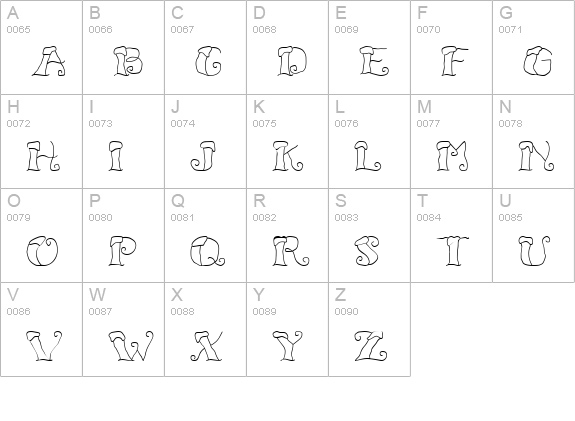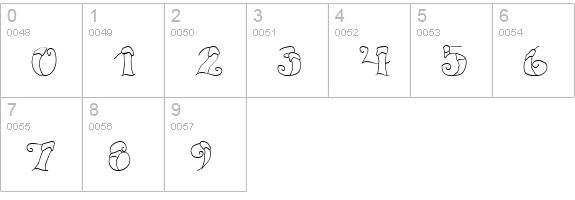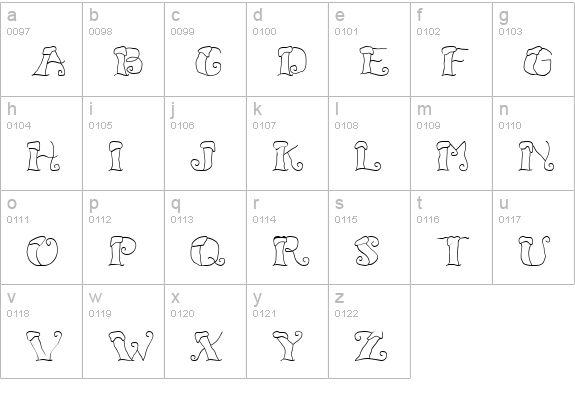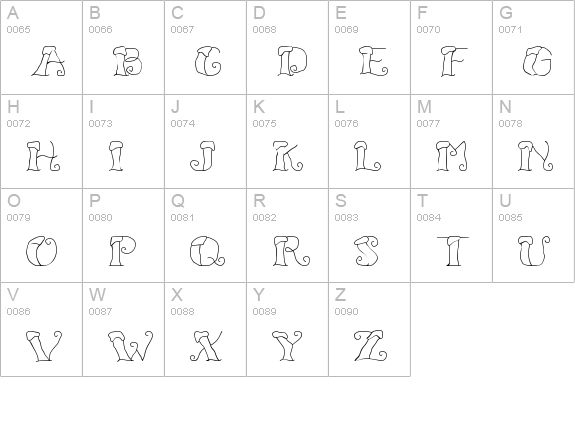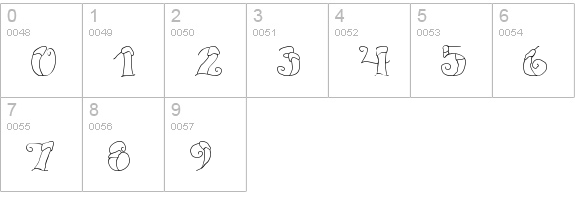
CK Winter Font Details
CK Winter font is a charming and versatile typeface that exudes a sense of warmth and coziness. Its elegant curves and clean lines make it perfect for a wide range of design projects, from invitations to branding to packaging. With a touch of whimsy and a hint of nostalgia, CK Winter font is sure to add a unique and inviting feel to any project. Best of all, CK Winter font is available for free download at FontsMarket.com. Whether you're a seasoned designer or just starting out, you can easily access this beautiful font to elevate your creations. Embrace the beauty and simplicity of CK Winter font and bring a touch of winter magic to your designs today.